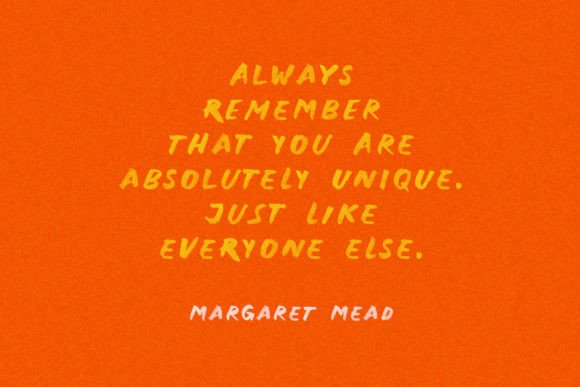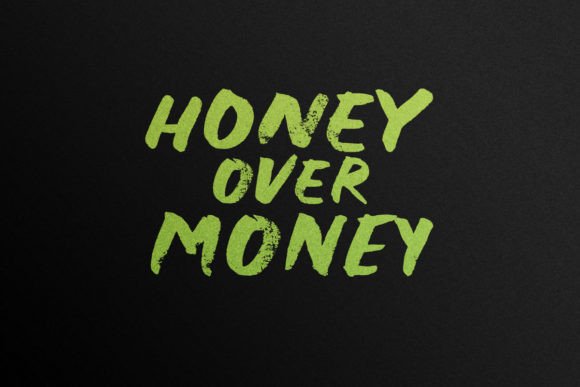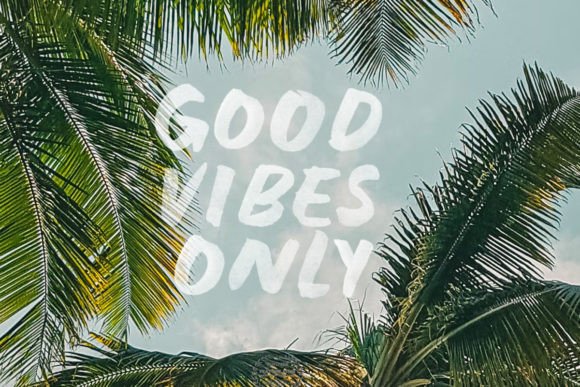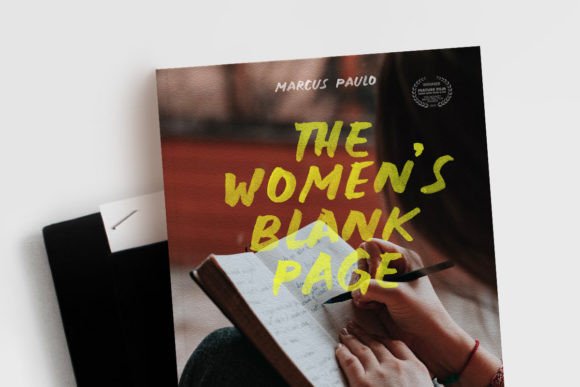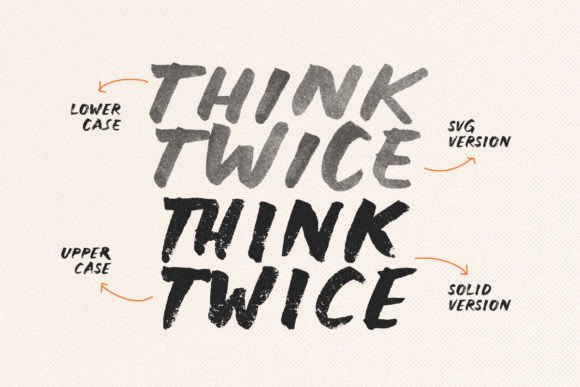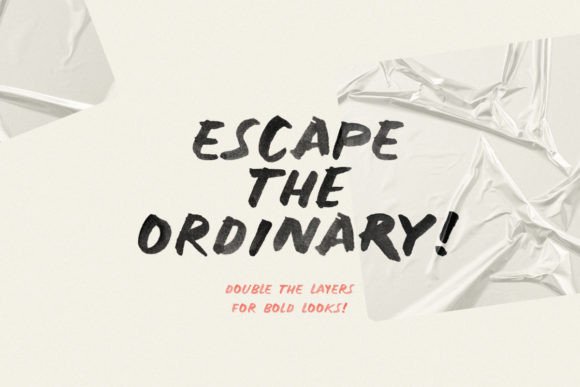
Introduction to Natural Rough Font
Have you ever stumbled upon a font that makes your design come alive? For designers, that moment of serendipity is like finding a hidden treasure. It’s when the perfect font speaks directly to your creative vision, elevating your project from ordinary to extraordinary. For me, that moment came when I discovered the enchanting Natural Rough Font.
As a design resource, Natural Rough Font offers a unique blend of elegance and whimsy, perfect for adding a touch of sophistication to any creative project. With its organic feel and hand-drawn appearance, this high-quality font is sure to captivate your audience. Whether you’re working on a logo, invitation, or simply want to add some visual interest to your design, Natural Rough Font is an excellent choice. Plus, with its transparent background and PUA encoding, you can easily access all the glyphs and swashes to customize your design.
What sets Natural Rough Font apart is its versatility and value for designers. It’s a free download that can be used for a wide range of projects, from wedding invitations to branding materials. Its high-quality design and ease of use make it an indispensable resource for any creative professional.
Key Features of Natural Rough Font
- Unique, hand-drawn design for a natural, organic feel
- Comes with a transparent background, making it easy to overlay on any design
- High-quality font suitable for creative projects, including invitations, posters, and more
- Features a high-resolution design, perfect for printing and digital use
- Supports a wide range of languages, making it a versatile design choice
Honest Review: Natural Rough Font
I recently came across the Natural Rough Font, and I must say it’s been a game-changer for my creative projects. This font is a great design resource for anyone looking to add a touch of organic charm to their work.
Here are some things that work well with the Natural Rough Font:
- High quality: The font is crisp and clear, making it perfect for print or digital use.
- Transparency: The transparent background allows for seamless integration with any design element.
- ⚠️ Limited character set: The font only includes a limited set of characters, which may not be ideal for longer texts.
- ⚠️ Not ideal for small text: The font is best used for larger text sizes, as the rough texture can make small text difficult to read.
Overall, I’m really impressed with the Natural Rough Font. It’s a fantastic addition to any designer’s toolkit, and I’ve already used it in several projects. With a little creativity, it can add a unique touch to any design.
How to Use Natural Rough Font
The Natural Rough Font is a versatile design resource ideal for creative projects requiring a high-quality, unique aesthetic. This font’s distinctive texture and feel make it perfect for adding an organic touch to your designs.
Using Natural Rough Font in Adobe Photoshop/Illustrator
In Adobe Photoshop and Illustrator, you can use the Natural Rough Font as a vector or raster file, depending on your project’s requirements. Experiment with different layer styles and effects to enhance the font’s texture and appearance.
Applying Natural Rough Font in PowerPoint/Word
In Microsoft PowerPoint and Word, you can use the Natural Rough Font to add a touch of elegance to your presentations and documents. Use the font in combination with other design elements to create a cohesive look.
The Natural Rough Font is perfect for:
- Designing labels and packaging for a unique, handmade look
- Creating invitations and event materials with a rustic, organic feel
- Adding texture and interest to digital designs, such as social media graphics and blog posts
Tips for Getting the Most Out of Natural Rough Font
To get the most out of Natural Rough Font, experiment with different font sizes, colors, and layer styles to find the perfect balance of texture and legibility. Use a transparent background to showcase the font’s unique texture and feel.
What is the recommended size for using the Natural Rough Font in a design project?
The Natural Rough Font is designed to be highly versatile, and it can be used at various sizes depending on your design needs. However, for optimal readability, we recommend using the font at sizes between 12 and 48 points. This will ensure that the text remains clear and legible in your creative project.